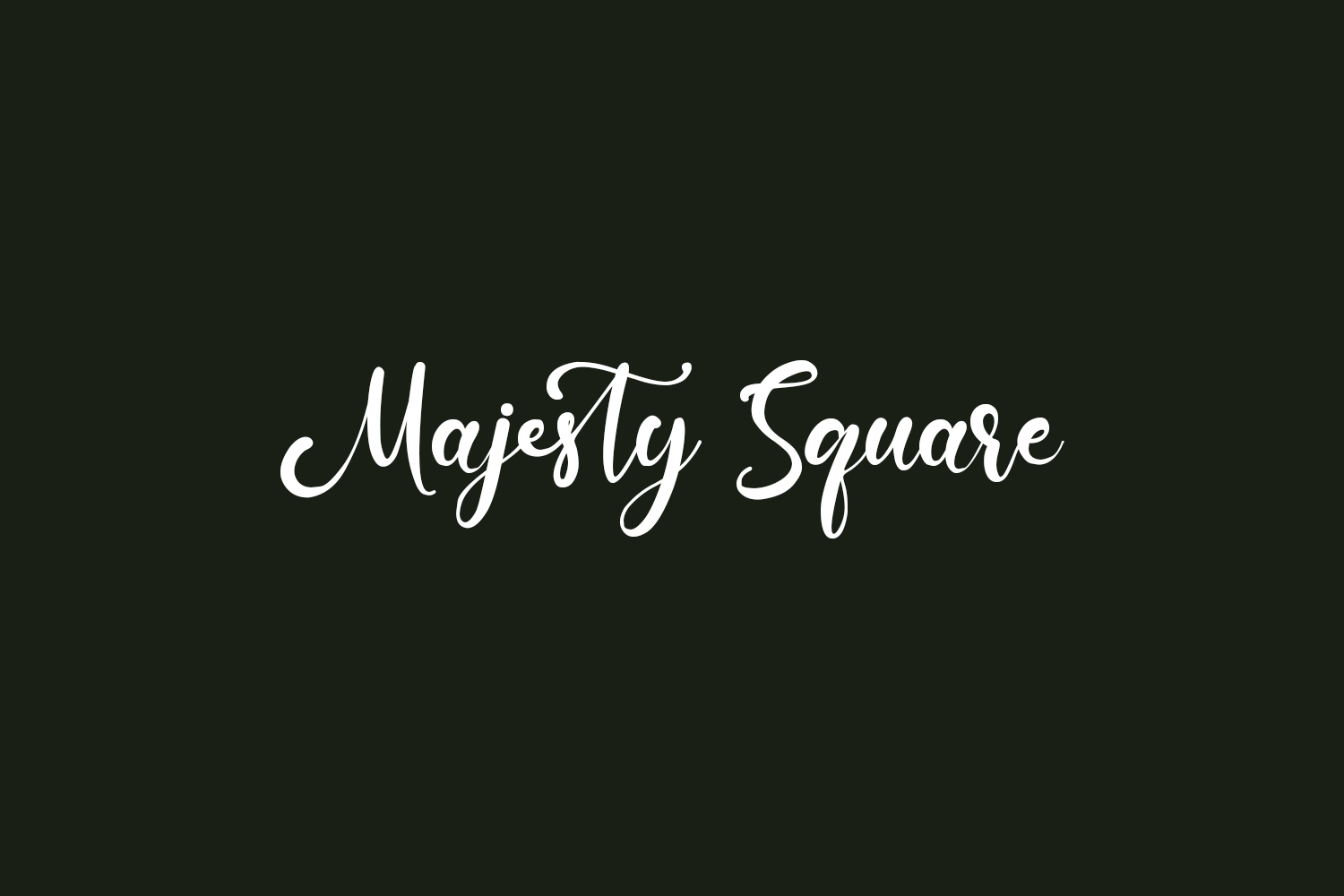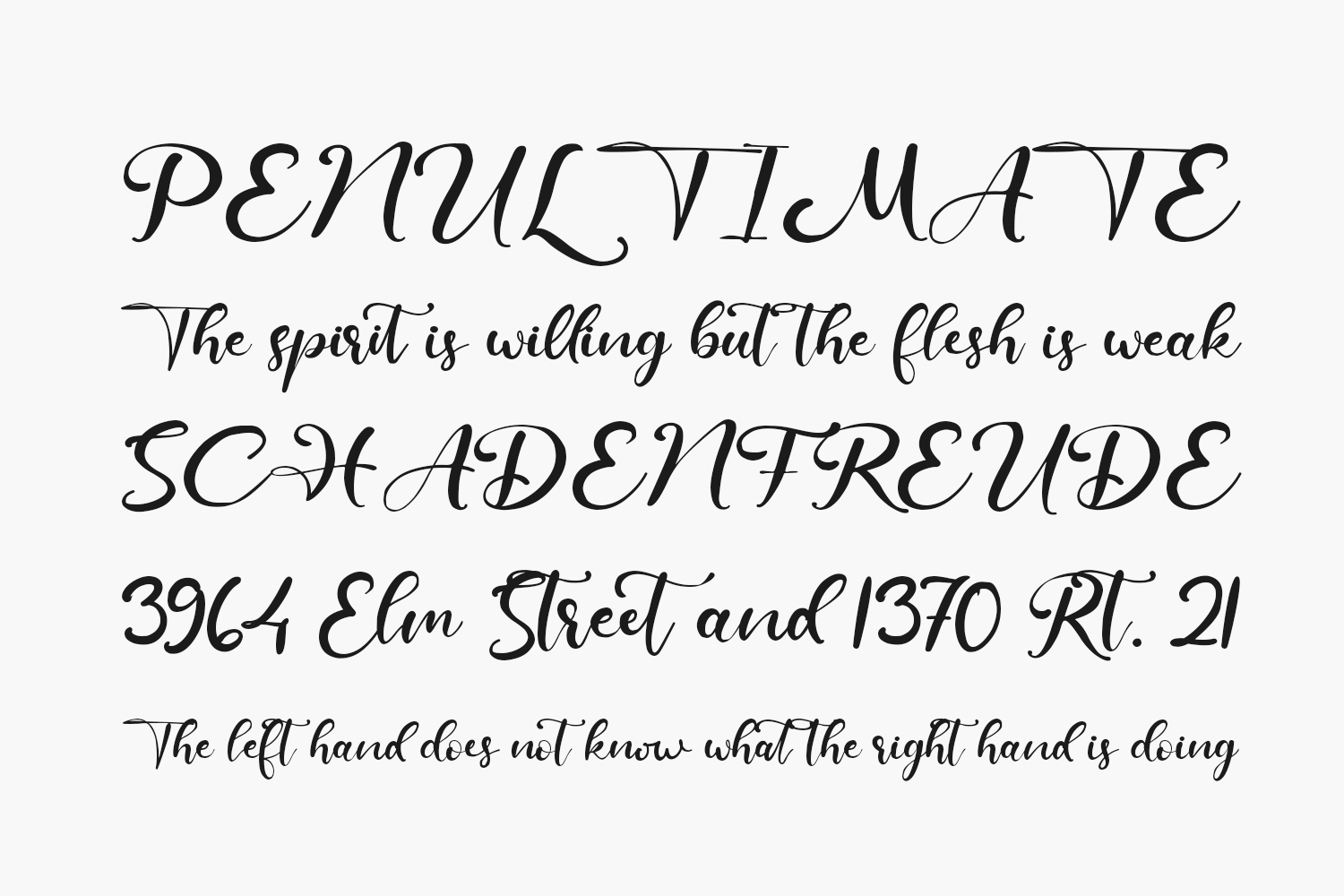
Majesty Square Free Font is a modern and playful handwritten script font. It’s great for crafters and designers. Majesty Square Free Font was designed by Kong Font and is free for personal use only. Please purchase the full version for commercial use.